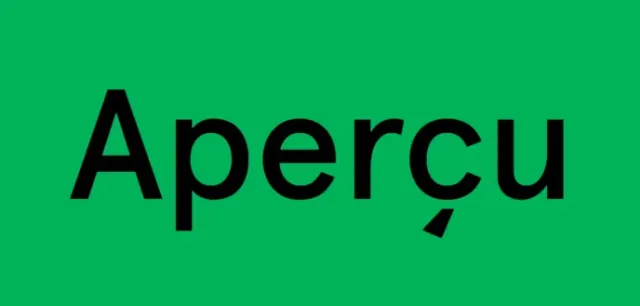
Apercu Font
About Apercu Font
I’m a typographer and graphic designer who often looks for typefaces that balance style with usability. While working on a branding project, I discovered the Apercu Font. Its clean yet quirky look instantly grabbed my attention.
I tested it on a website layout and some printed material, and the results felt modern without being cold. The versatility across both digital and print gave me confidence in its strength. That’s why I wanted to share my review. My goal is to show how this typeface performs in real design work and why it’s worth exploring for creative projects.
The Font Type and the Designer
The Apercu Font family was designed by Colophon Foundry and released in 2010. The drawing of Aperçu began in December 2009 and was tested through different design commissions before release. The concept was to create an amalgamation of classic grotesque sans-serif typefaces like Johnston, Gill Sans, Neuzeit, and Franklin Gothic into a modern reinterpretation.
Apercu was built as a sum of parts. It takes familiar elements from those classics but reshapes them into a contemporary style with its own identity. The result is a typeface that feels both historical and fresh.
Since its launch, Apercu has been widely used in institutions and brands. It has appeared in publications, visual identities, and websites for major names including MOMA, Burberry, Zeit Magazine, and the Walker Art Center. Its adoption across different sectors shows its adaptability.
The family contains 16 styles, covering weights and italics. Colophon Foundry also produced variations like Aperçu Mono, expanding its use for coding and editorial design. Its presence in Adobe Fonts and Google Fonts alternatives has made it popular among designers looking for high-quality, versatile sans fonts.
Features of This Font
The Apercu Font stands out for its grotesque sans-serif structure. It combines the neutrality of geometric sans fonts with humanist touches that make it warm and approachable. This balance helps it feel more personable than rigid sans-serifs.
The letterforms carry distinctive details. The lowercase “a” has a clean but modern look, while the “g” and “r” add subtle quirks that break the monotony. Narrow shapes, balanced x-height, and consistent weight distribution contribute to its readability.
As a font family, Apercu offers 16 styles, making it versatile enough for headings, text, and display use. It works across desktop, web, and publications, with smooth embedding via CSS font-face. Designers can also explore pairings with fonts like Futura or Franklin Gothic for added contrast.
The typeface supports OpenType features, glyph variations, and extensive language coverage. That makes it a practical choice for global brands and design systems. Its visual strength lies in how it can shift from playful to professional, depending on context. Whether for web material, branding, or editorial work, Apercu offers consistency with a touch of originality.
In editorial and publication design, Apercu is highly effective. The balanced style works for both headlines and long text, providing a steady reading experience. Magazines, catalogs, and digital publications often use it for its combination of usability and style.
For digital products, Apercu performs smoothly on websites and mobile interfaces. Its clean forms adapt well to responsive designs, and it pairs well with other sans-serif or serif typefaces for contrast. Adobe Fonts makes embedding easy for designers working across platforms.
The typeface is also effective in visual identity projects, signage, and gallery work. Its use by institutions like MOMA and Burberry highlights how it serves both cultural and commercial contexts. Whether for typography-driven graphics, font pairings, or interactive design, Apercu is a reliable choice for versatile applications.